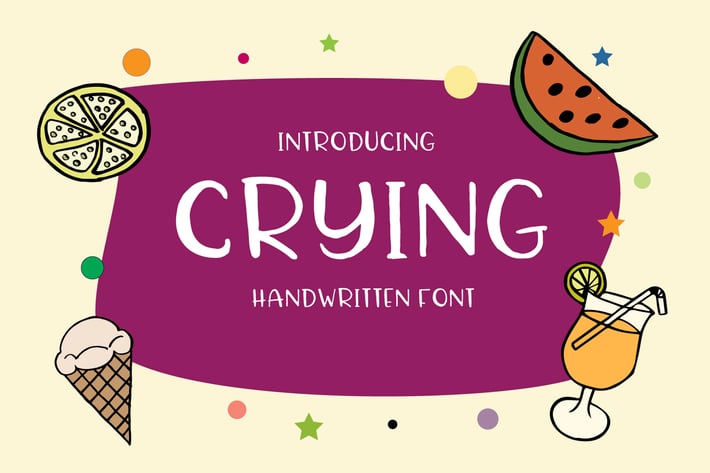
Crying Font
Crying Font a very unique handwritten font that comes with a very beautiful surprise so it is suitable for your design needs such as printed quotes, summer concepts, invitation cards, social media, product packaging, Web you, and more!